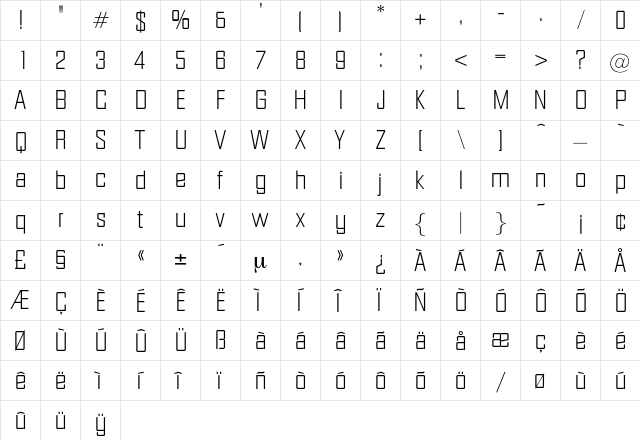
Carrera Regular
Design Context for Carrera Typeface
Carrera offers clean, dependable letterforms without strong stylistic allegiance, making it a practical choice for designers who need flexibility.
Pro Tip: Use Carrera in both headline and body roles to test its range before committing to a single application.